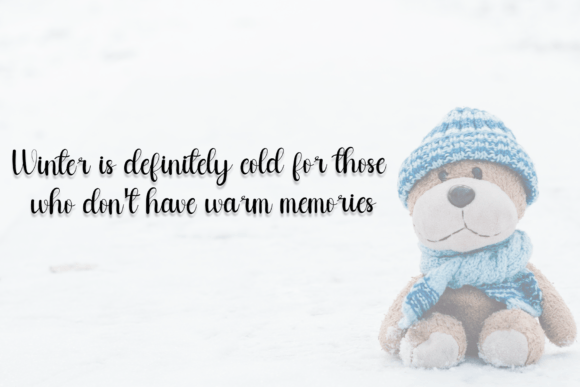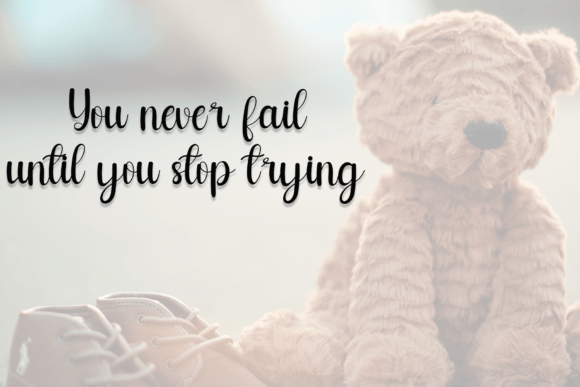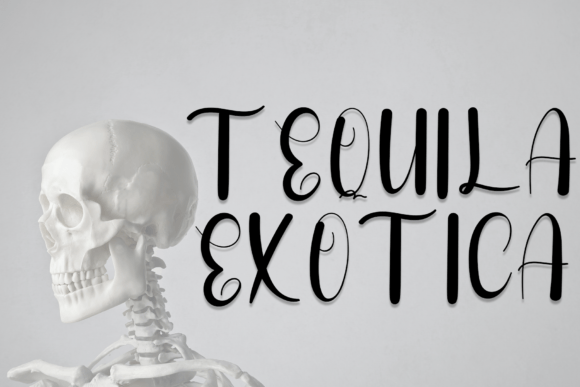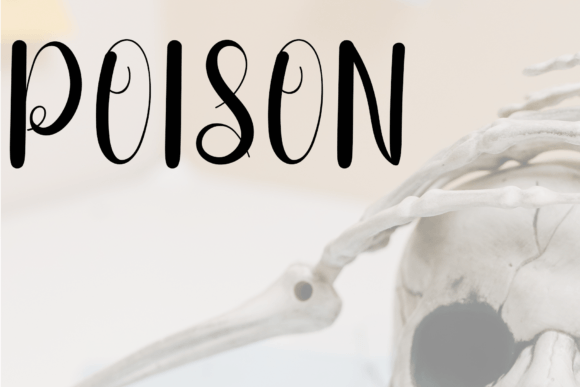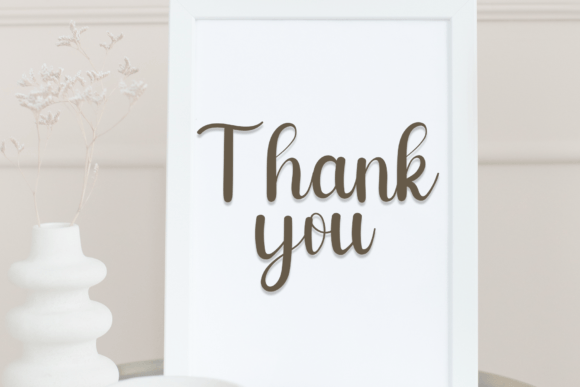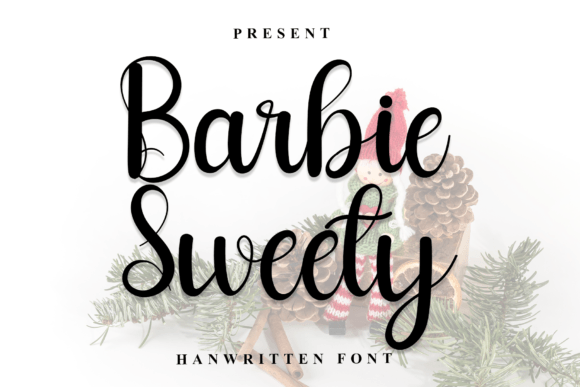
Discover the Elegance of Barbie Sweety Font: Elevate Your Designs to New Heights
Are you on the hunt for a font that exudes elegance, sophistication, and a touch of modern flair? Look no further than the captivating Barbie Sweety Font. This exquisite handwritten font is meticulously crafted to capture the hearts of designers and crafters alike, making it a true favorite in the world of typography.
The Essence of Barbie Sweety Font
Barbie Sweety Font strikes the perfect balance between classic calligraphic influences and contemporary design elements. Its unique blend of traditional and modern styles makes it an incredibly versatile font, suitable for a wide range of projects, from wedding invitations and branding materials to digital content and craft projects.
What sets Barbie Sweety apart is its ability to convey a sense of luxury and refinement without ever appearing too formal or stuffy. This font is perfect for designers who want to add a touch of whimsy and romance to their work, while still maintaining a level of sophistication that appeals to a broad audience.
Key Features of Barbie Sweety Font
- Handwritten Elegance: Barbie Sweety boasts beautiful, flowing script letters that give any project a personal and bespoke feel.
- Classy Calligraphic Influences: The font’s roots in traditional calligraphy are evident, providing a level of class and sophistication that’s hard to match.
- Contemporary and Fresh: Despite its classic influences, Barbie Sweety feels modern and current, making it perfect for designers looking for a font that will stand out in a crowded digital landscape.
- Versatility: From digital content to print materials, Barbie Sweety can be used across a variety of mediums, making it a valuable addition to any designer’s toolkit.
Why Fall in Love with Barbie Sweety?
There are many reasons why Barbie Sweety Font has captured the hearts of designers and crafters worldwide. Its unique combination of elegance and approachability makes it the perfect choice for projects where you want to make a lasting impression. Whether you’re working on a branding campaign, crafting beautiful wedding invitations, or creating engaging digital content, Barbie Sweety can help elevate your work to new heights.
Moreover, the font’s ease of use and flexibility make it accessible to designers of all skill levels. Whether you’re a seasoned professional or just starting out, Barbie Sweety can help you achieve your design goals with minimal effort.
Using Barbie Sweety in Your Projects
So, how can you incorporate Barbie Sweety Font into your designs? The possibilities are endless. Here are a few ideas to get you started:
- Wedding and Event Planning: Use Barbie Sweety to create stunning wedding invitations, save the dates, and event banners that set the tone for an unforgettable celebration.
- Branding and Marketing: Add a touch of elegance to your brand’s identity with Barbie Sweety, perfect for logos, packaging, and promotional materials.
- Digital Content: Make your blog posts, social media graphics, and email newsletters stand out with the beautiful, flowing script of Barbie Sweety.
- Crafting and DIY Projects: From scrapbooking to crafting personalized gifts, Barbie Sweety can add a touch of whimsy and charm to your DIY projects.
Barbie Sweety Font is more than just a font – it’s a design statement. With its exquisite handwritten elegance, classy calligraphic influences, and contemporary freshness, it’s the perfect choice for designers and crafters looking to elevate their projects to new heights. So why wait? Fall in love with Barbie Sweety and discover a world of design possibilities at your fingertips.